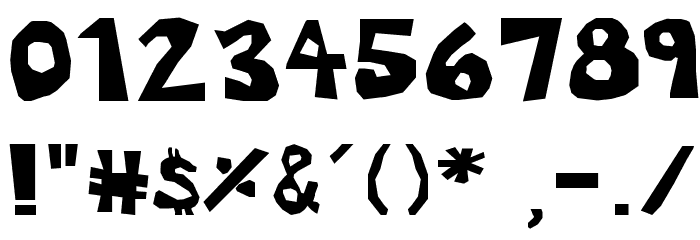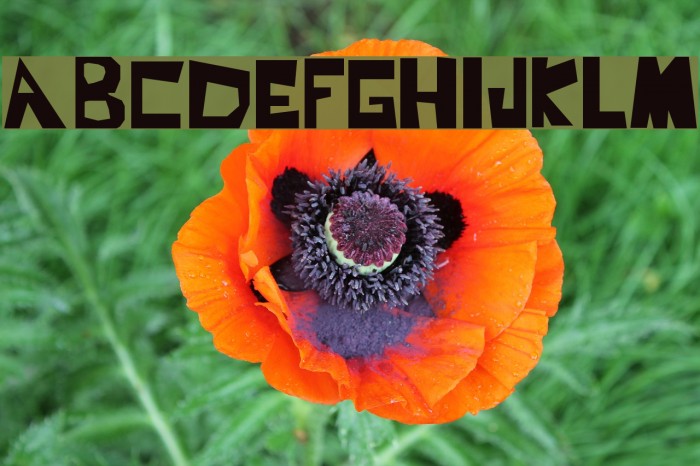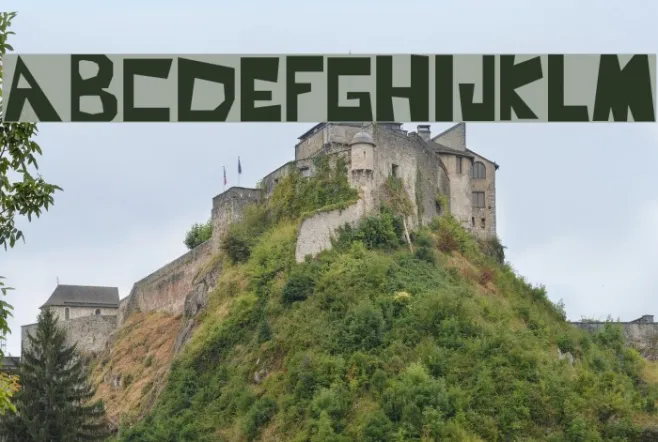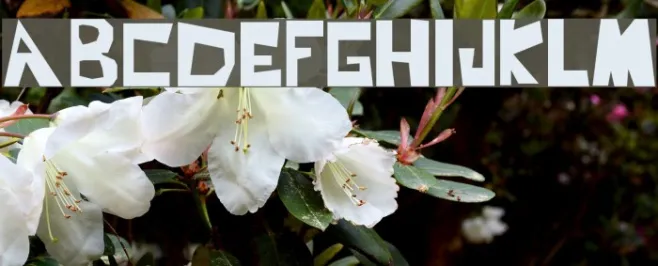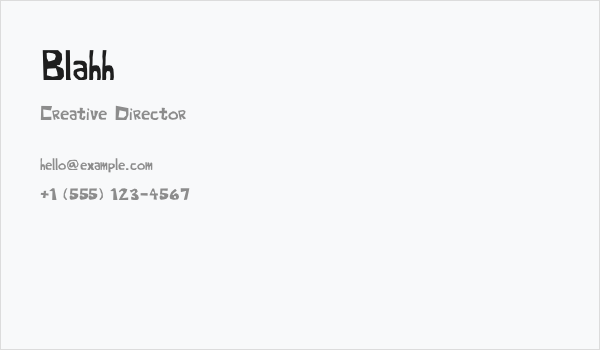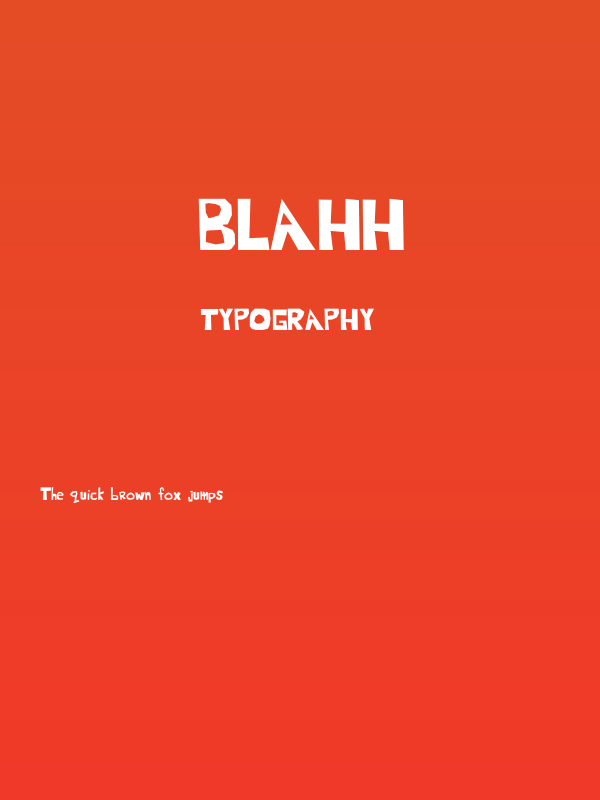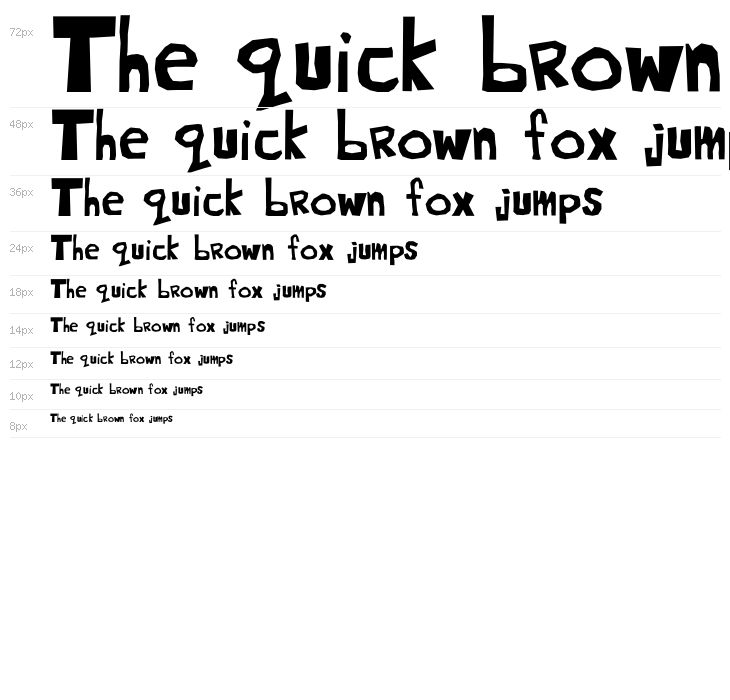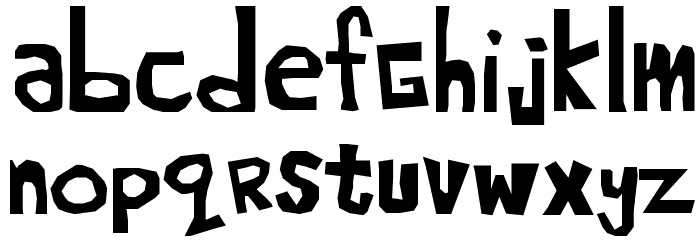
Blahh Font
Blahh Description
This font features a bold and playful design with irregular, jagged edges that give it a hand-cut, artistic feel. The uppercase and lowercase letters maintain a consistent style, with exaggerated angles and varying stroke widths that create a dynamic and energetic appearance. The numbers and special characters follow the same whimsical pattern, making the font suitable for creative and informal applications. Its unique style captures attention and adds a sense of fun and spontaneity to any project.
| Proposed Projects | Ideal for posters, children's books, comic strips, and creative branding projects. |